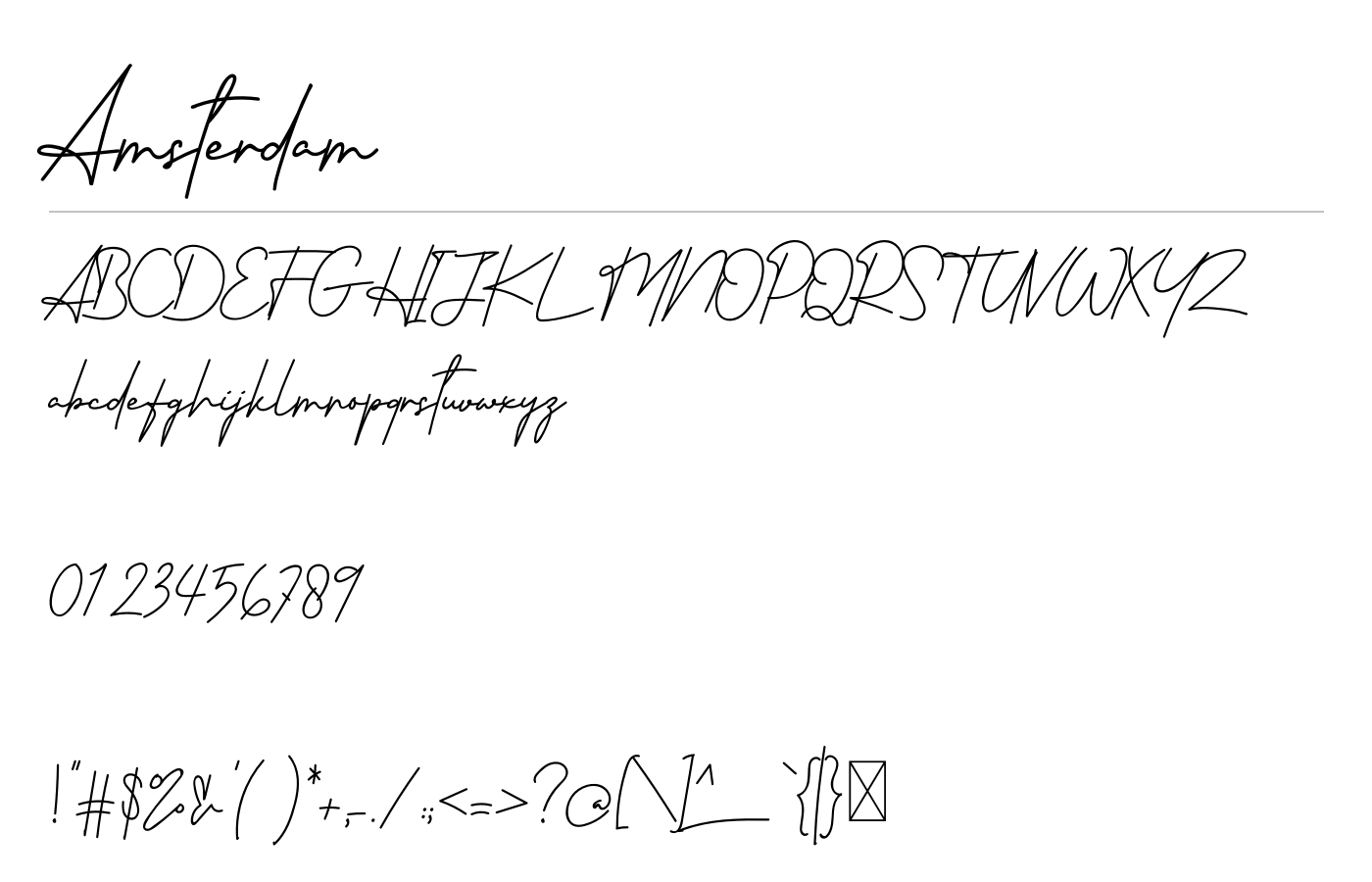
Amsterdam is a slender, elegant script font that captures a casual yet refined handwritten style. Its tall, narrow letterforms with smooth, flowing lines and subtle irregularities give it a modern and personal feel, making it ideal for creative branding, delicate logos, and stylish invitations. This font works beautifully in contexts where a light, airy touch with a sophisticated flair is desired.
Amsterdam Font
About Amsterdam Font